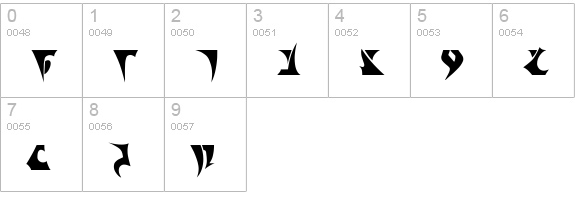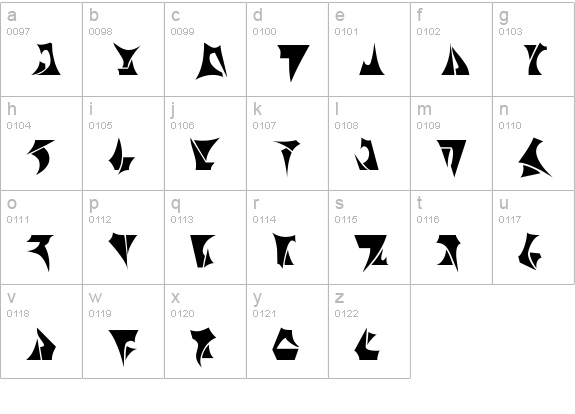
Romiromu Font Details
Romiromu font is a modern and stylish typeface that exudes elegance and sophistication. With its sleek lines and versatile design, Romiromu is perfect for a wide range of design projects, from branding to editorial to web design. This font features a unique blend of sharp angles and smooth curves, giving it a contemporary yet timeless feel. What sets Romiromu font apart is not only its beautiful aesthetics but also the fact that it is available for free download at FontsMarket.com. This means that you can easily access this high-quality font without any cost, making it a valuable addition to your font library. Whether you're working on a logo, website, poster, or any other creative project, Romiromu font is sure to make a statement and elevate your design to the next level. Download it for free today and unleash your creativity with this stunning typeface.